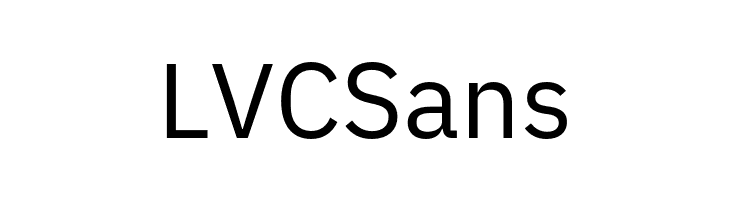
A modern, clean sans-serif font with excellent readability.
A bold, modern sans-serif font with clean lines and a robust presence.
A modern sans-serif italic font with clean lines and excellent readability.
A modern, thin-stroked font with a clean and elegant appearance.
A modern sans-serif font with clean lines and excellent legibility.
A modern, narrow sans-serif font with clean lines and balanced spacing.
A bold, modern sans-serif font with a condensed and professional appearance.
Bold, italicized font with a modern and dynamic style.
A sleek, italicized font with elongated, modern letterforms.